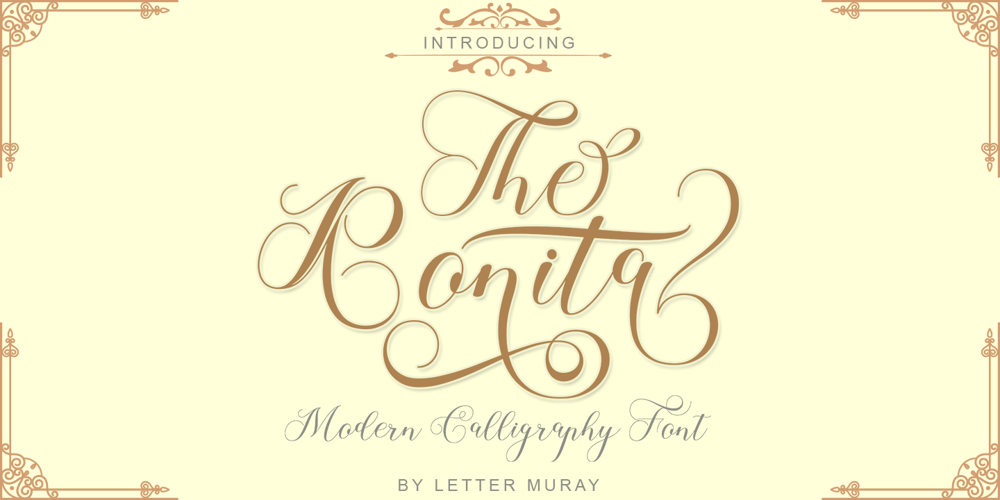
The Ronita Font Family was designed by Muji Bullah and published by Letter Muray. The Ronita contains 1 styles and family package options. The Ronita is a unique Font. like dance letters, smooth, clean and simple. The Ronita is a perfect Font for weddings, events, invitations, companion cards, menu headers, displays, logos, blog sliders, packaging, greeting cards, etc.The Ronita includes alternate glyphs and beautiful swirls in fonts including style sets, Ligatures etc. The Open Type feature can be accessed using intelligent Open Type programs such as Adobe Illustrator CS, Adobe Indesign & CorelDraw X6-X7 and Microsoft Word. And this Font has provided PUA unicode (custom coded font). so that all alternative characters can be easily accessed in full by a craftsman or designer.Features:Basic Latin AZ and azNumbers & PunctuationStyle Sets & FastenersPUA Encode (Custom Encoded Fonts)If you don’t have a program that supports OpenType features such as Adobe Illustrator and CorelDraw X Version, you can access all the alternative glyphs using Font Book (Mac) or Character Map (Windows). Using Windows Character Map with Adobe Photoshop ( PS)